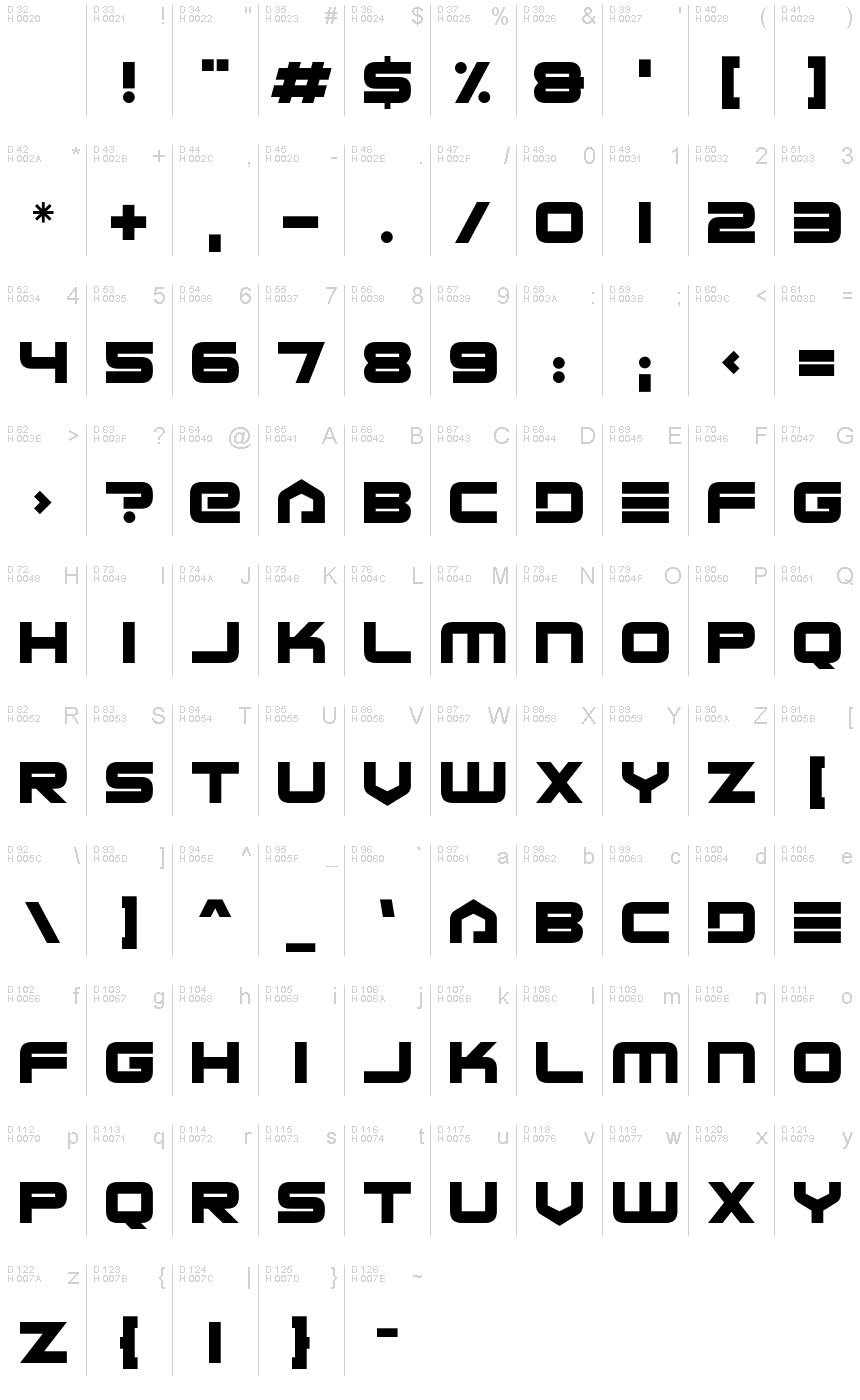
Alien Invader
Looking for a bold and futuristic display font that's out of this world? Introducing Alien Invader, the latest creation by Darrell Flood. With its expanded width and bold weight, this unique typeface is perfect for any project in need of a sci-fi vibe - from video game titles to movie posters to branding for tech startups. The sleek and otherworldly design of Alien Invader will transport your audience into the future, making it an ideal choice for science fiction books or even fashion campaigns. Make your project stand out from the crowd with Alien Invader.